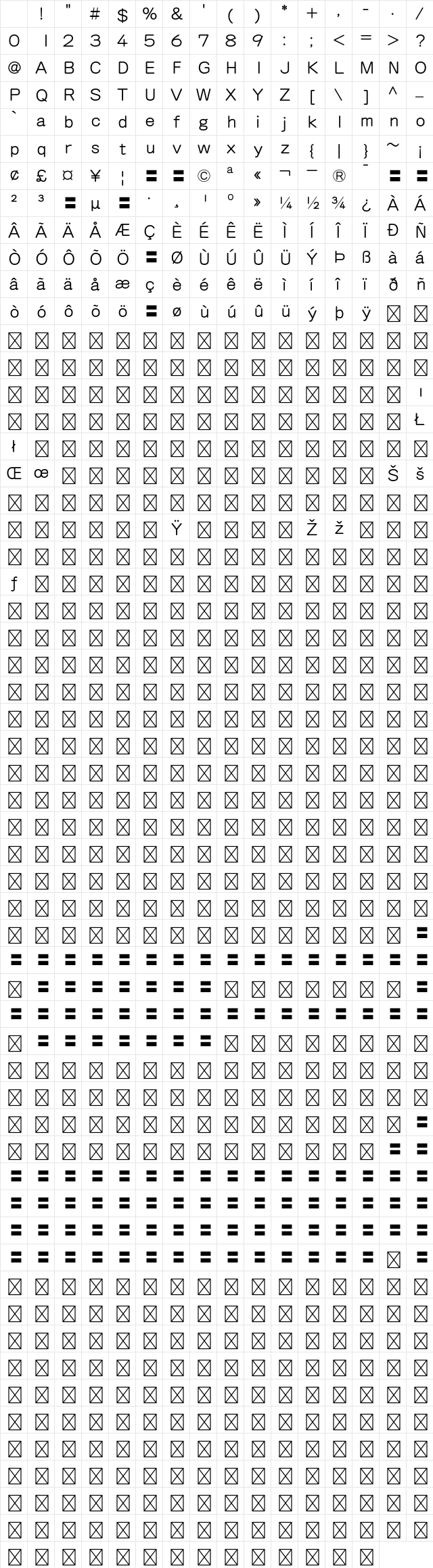
Complete G-OTF Hitu2jyo ICA StdN M2 glyph index. Displaying only characters natively supported by G-OTF Hitu2jyo ICA StdN M2 font.
G-OTF Hitu2jyo ICA StdN is a composed and adaptable typeface that performs quietly and consistently across a wide range of design contexts.